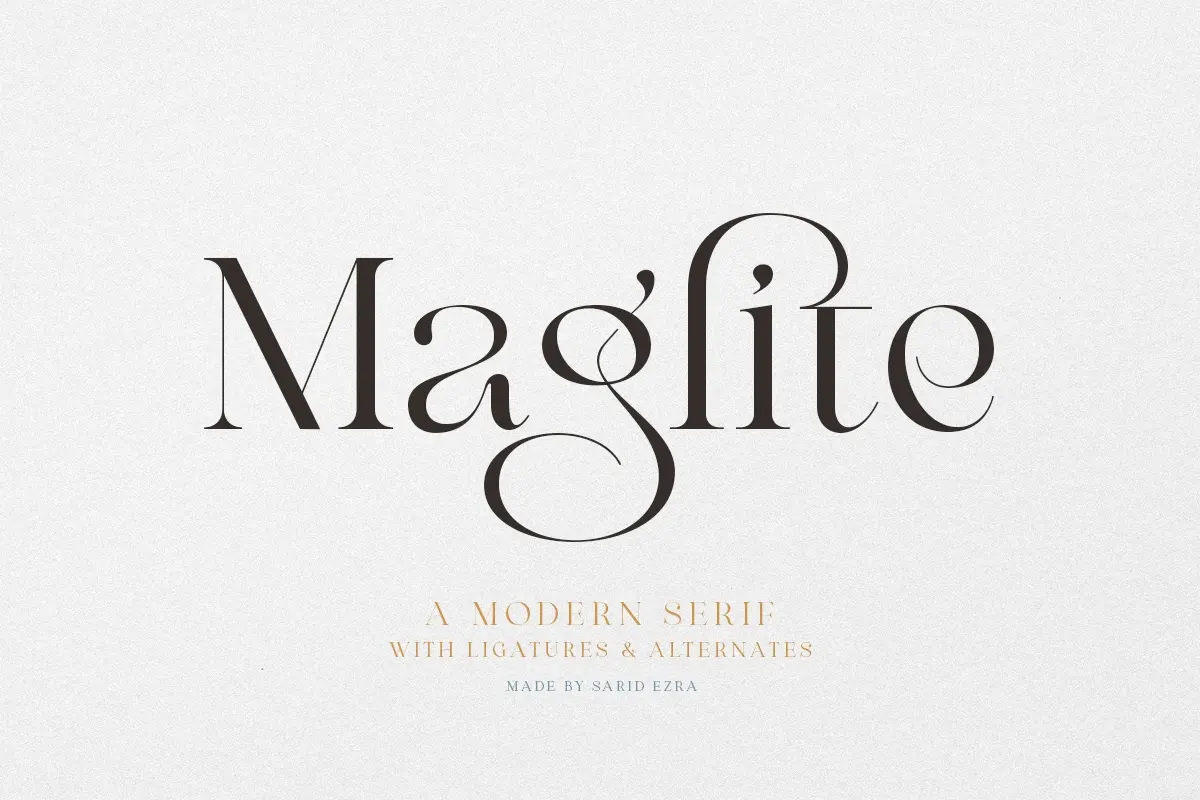
Maglite - Modern Ligature Serif Free Download
Maglite Font Free Download is a modern ligature serif typeface that blends elegance, innovation, and high-fashion appeal. With its stylish letterforms, smooth curves, and unique ligatures, Maglite is perfect for luxury branding, magazine titles, wedding invitations, logo designs, and premium packaging.
Designed to make a visual statement, Maglite Font Free Download features beautifully crafted ligatures that add flair and sophistication to any layout. Its high contrast strokes and refined details bring a modern edge to the classic serif style, making it ideal for projects that need both elegance and originality.
Whether you’re designing for fashion, beauty, or upscale editorial content, Maglite adds a custom-designed feel that instantly elevates your work. It pairs well with minimalist sans-serifs for a balanced, high-end look.